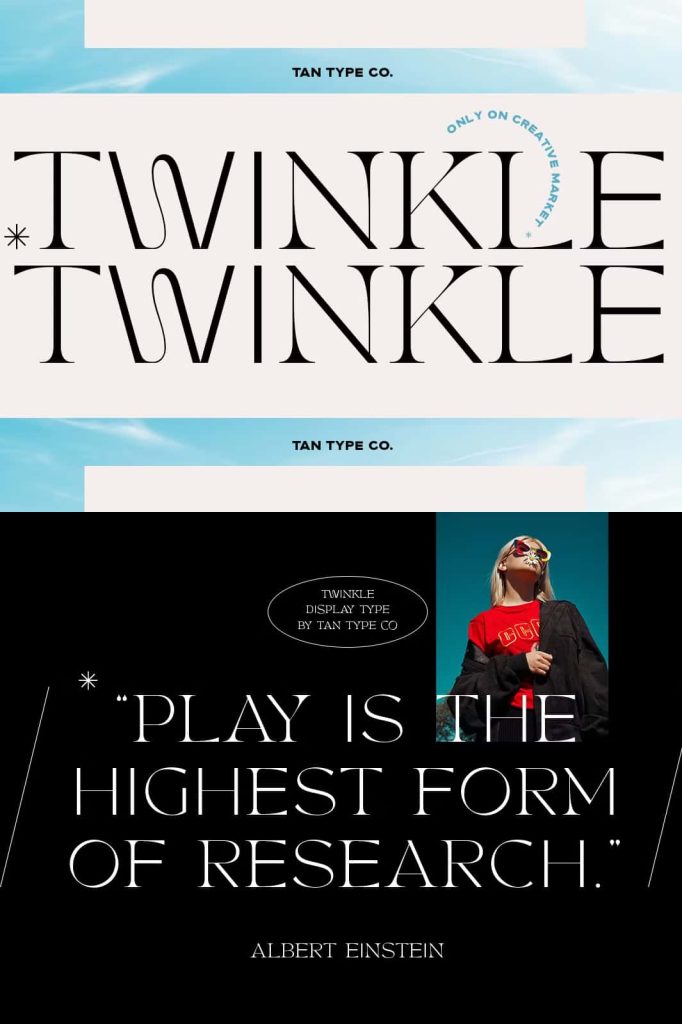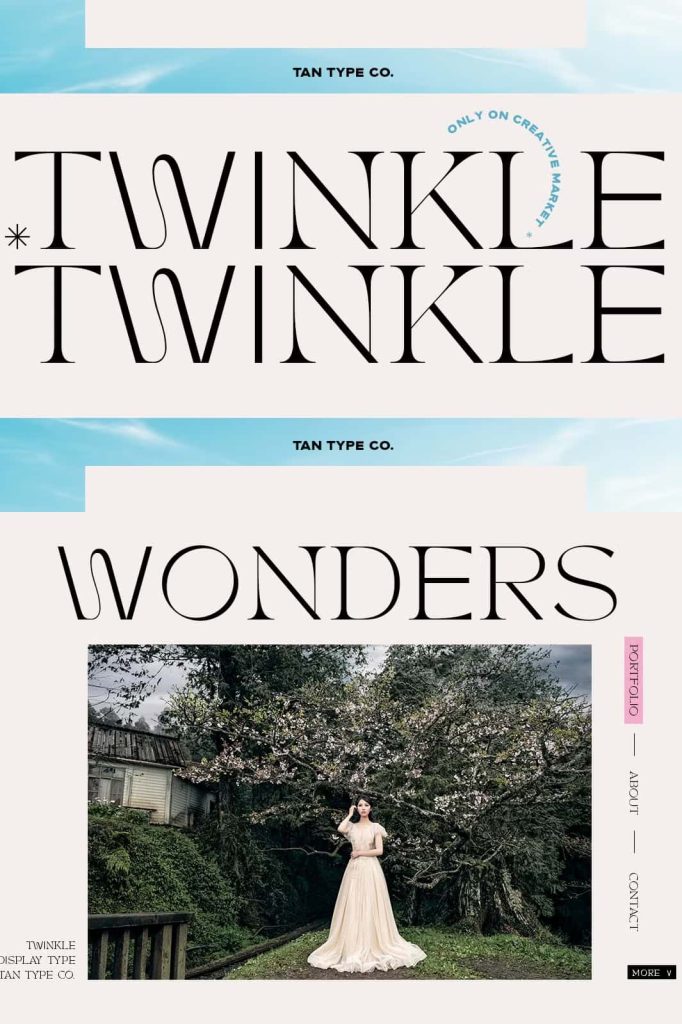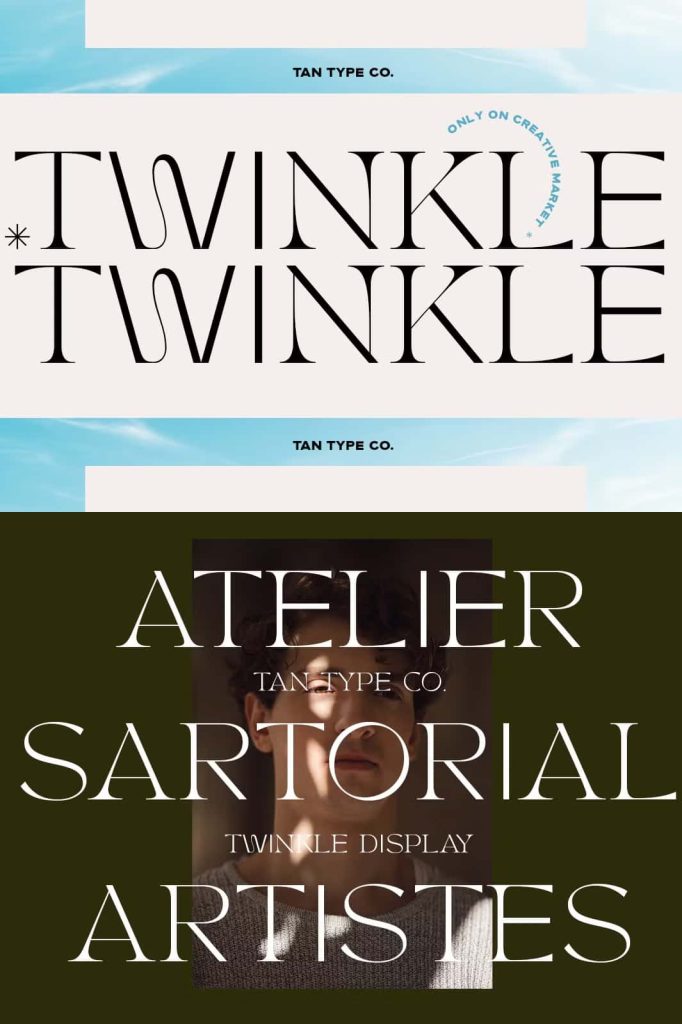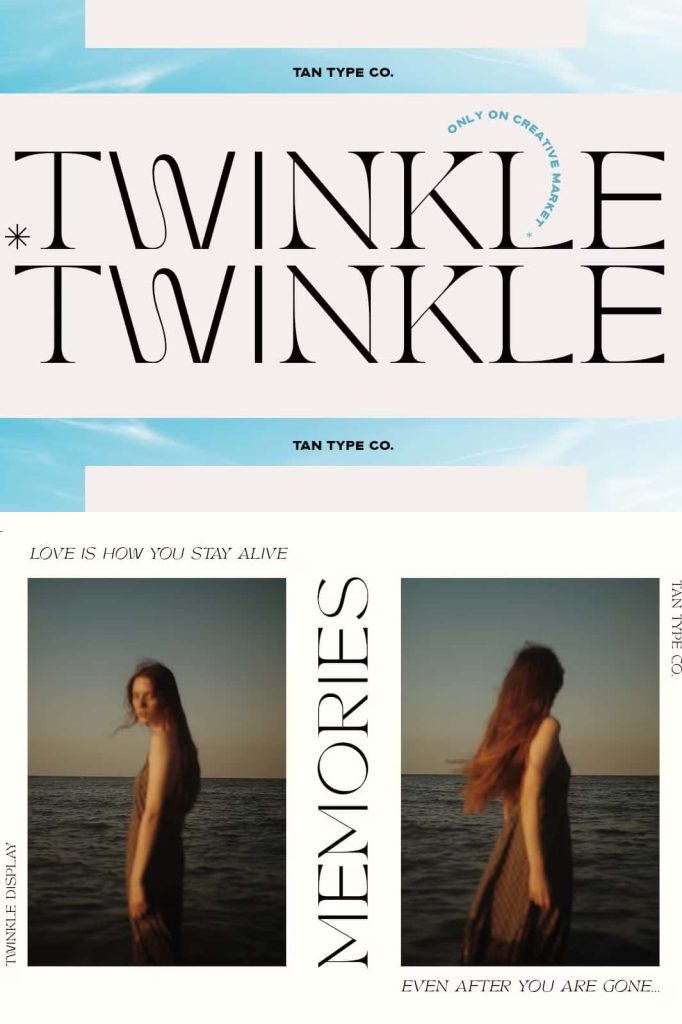
TAN – TWINKLEleastedMarch 11, 2025Fonts TAN – TWINKLE is a hybrid between serif and sans serif, creating a modern, delicate and contemporary look. Download